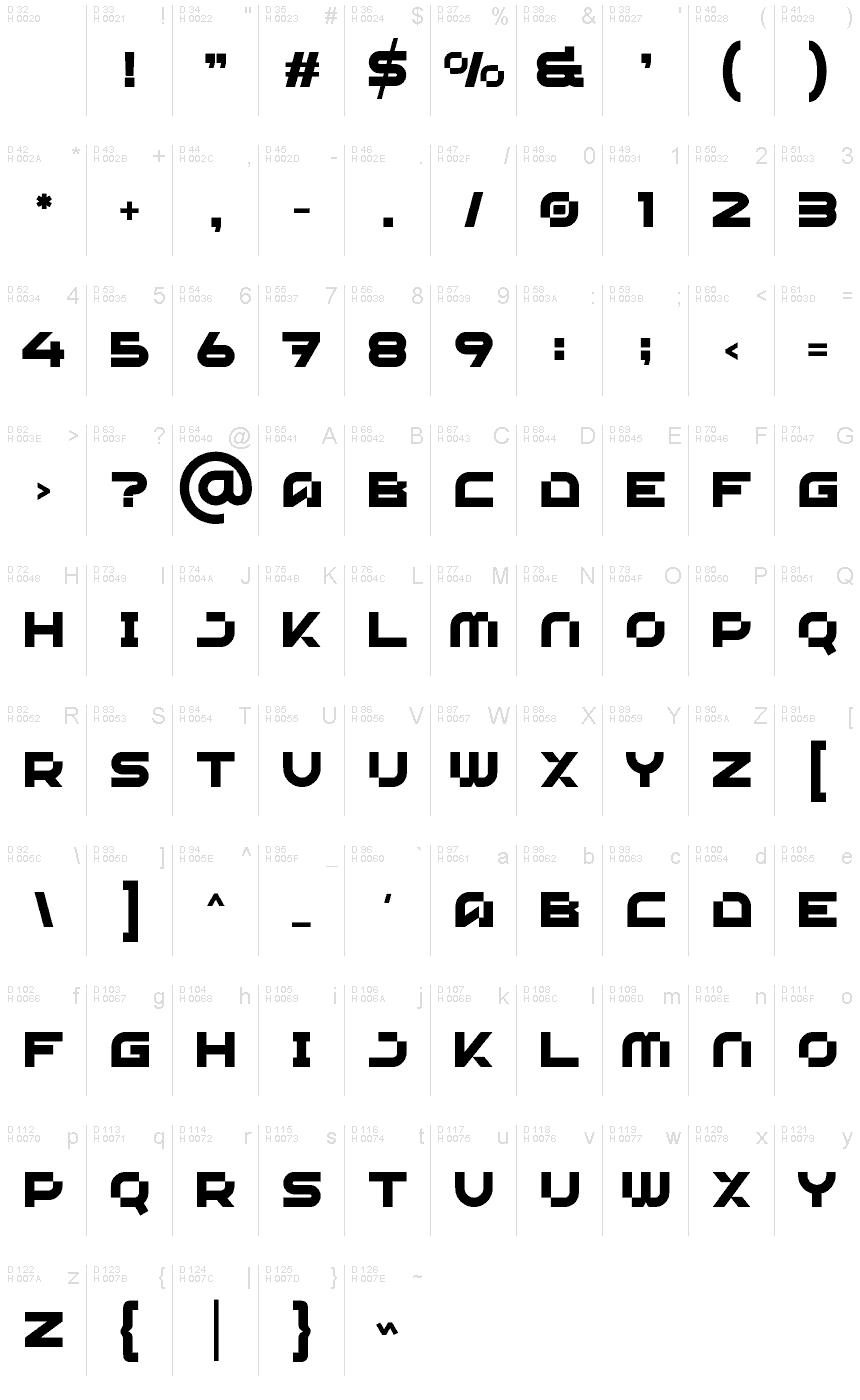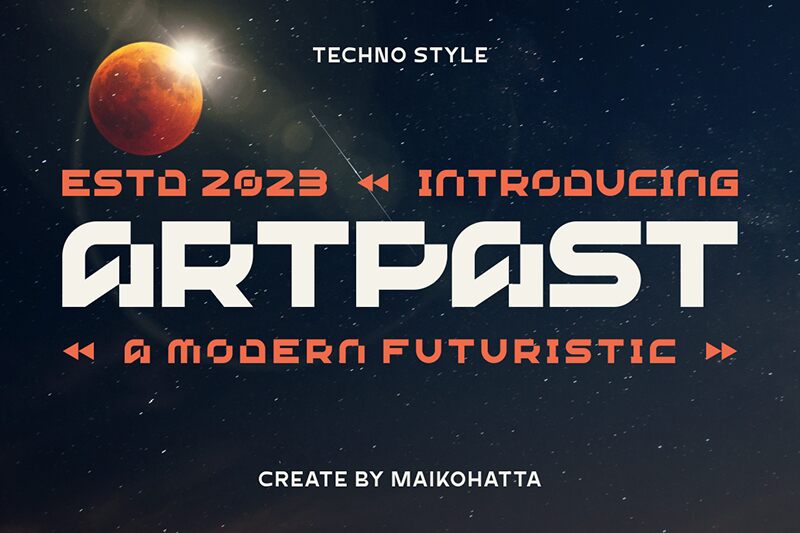
Artpast
Artpast font is a futuristic display typeface designed by Gilang Ternadho. Its bold, expanded characters combine geometric and angular shapes that attract with their powerful, almost industrial geometry. The modern and industrial-style typography can be further appreciated through the font’s uniform thickness as well as through its heavily-modified characters.
Free futuristic display fonts tend to perform excellently in sci-fi book covers, postcards, posters, flyers, event tickets, album covers, and similar designs. Artpast will impress when featured on digital screens such as in applications or websites or even on signage.